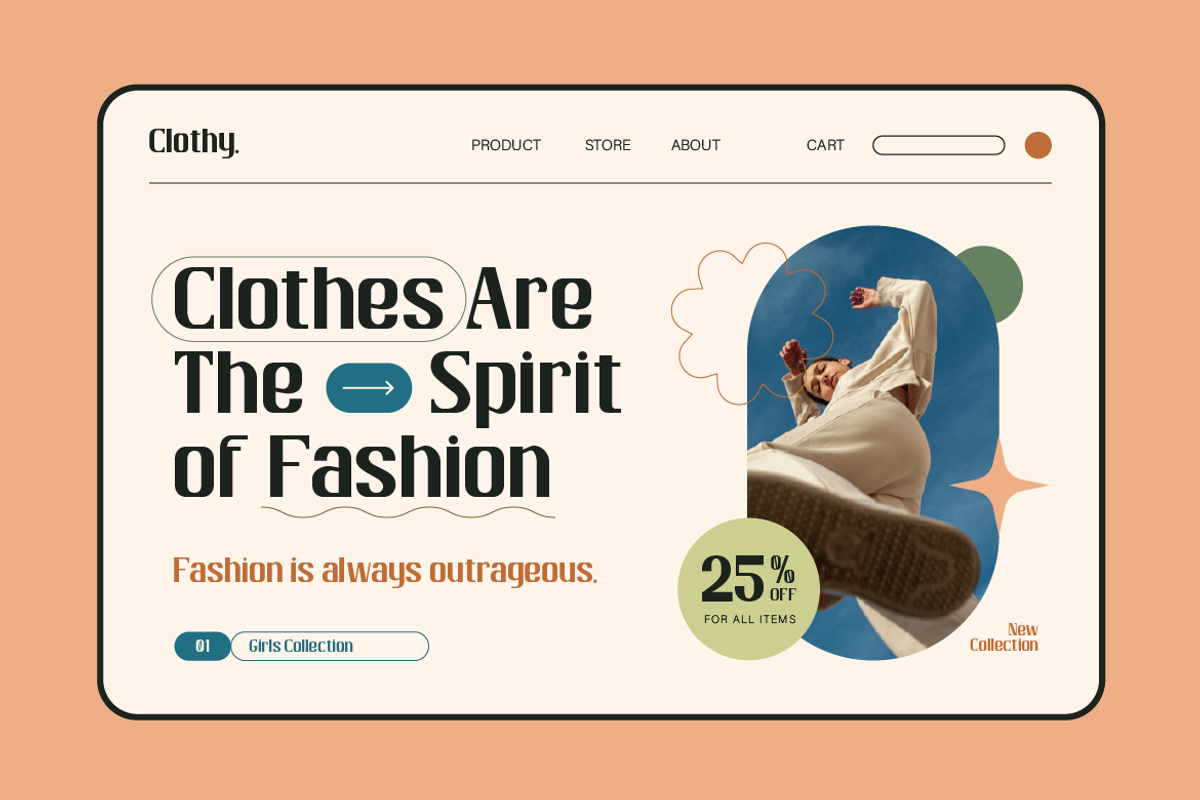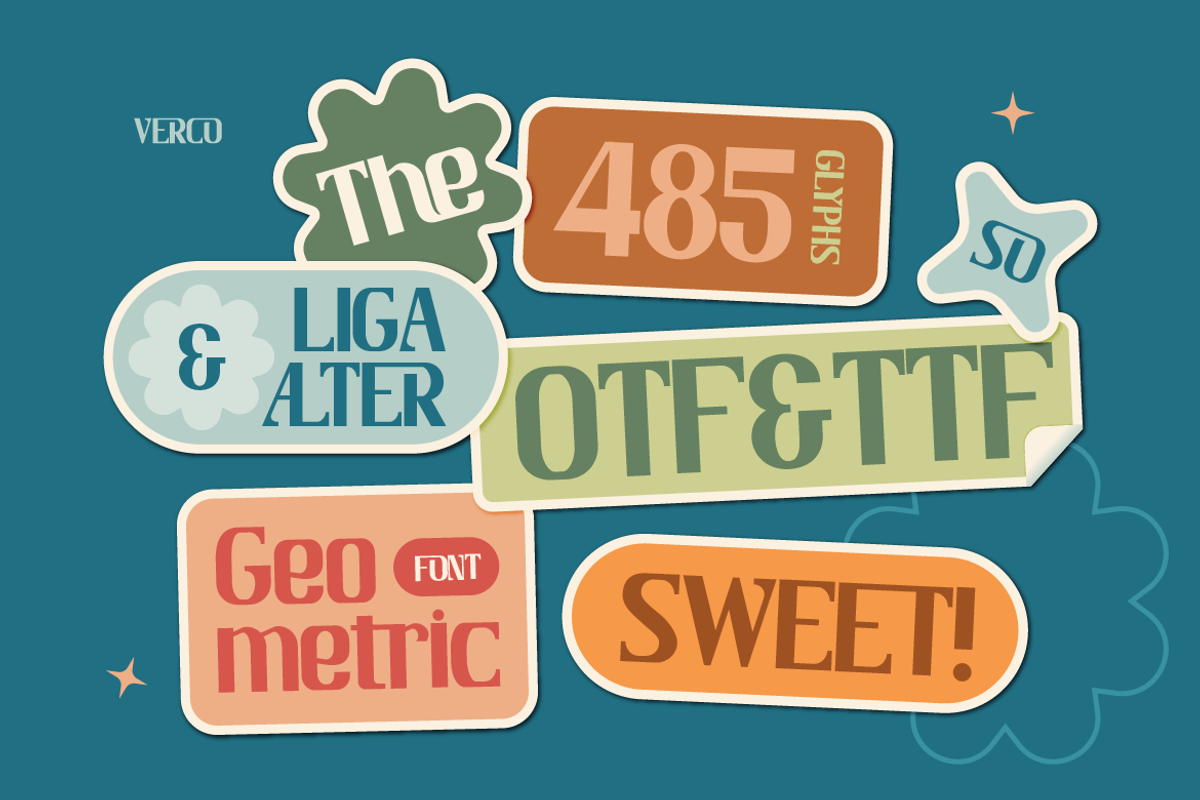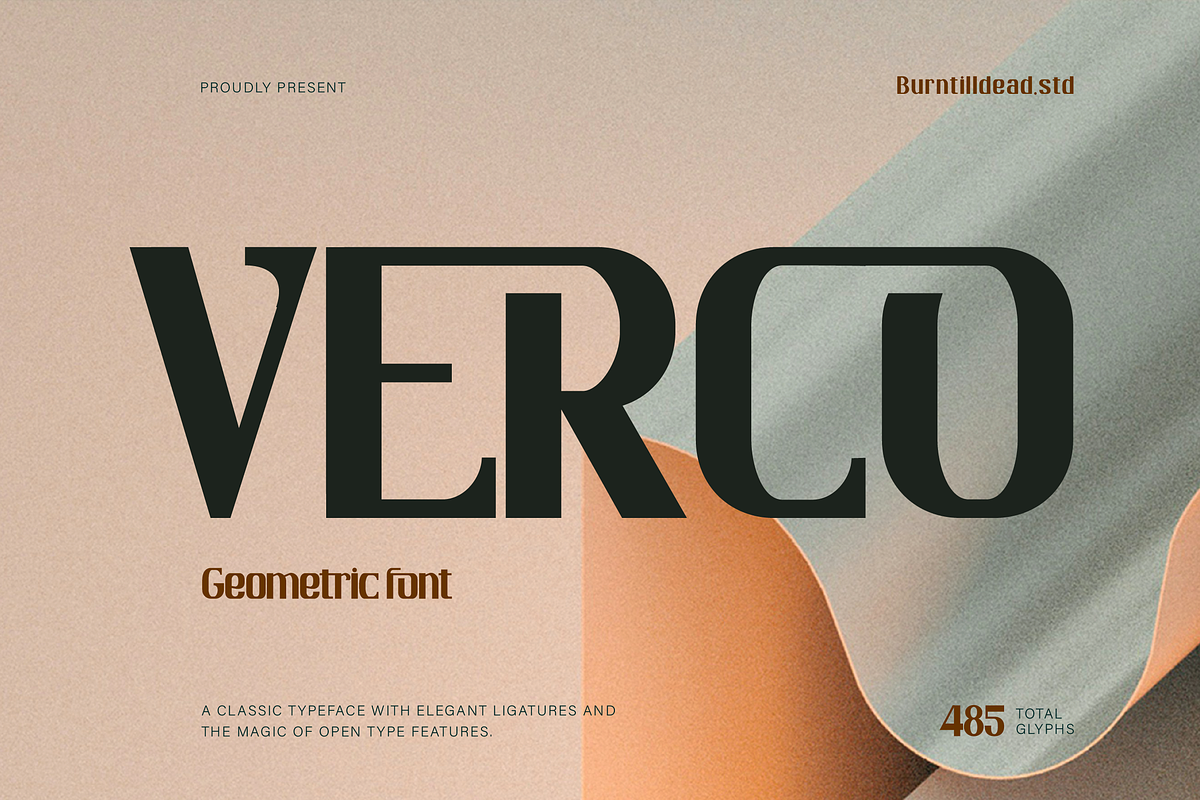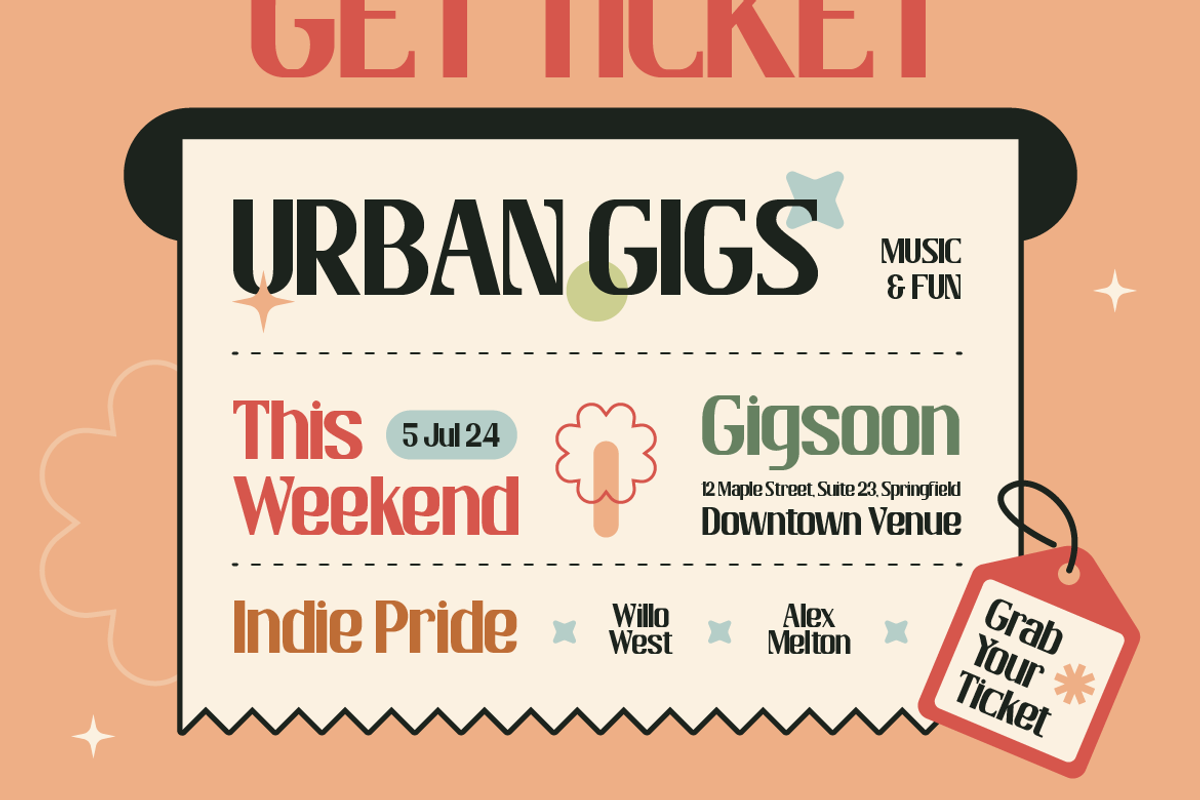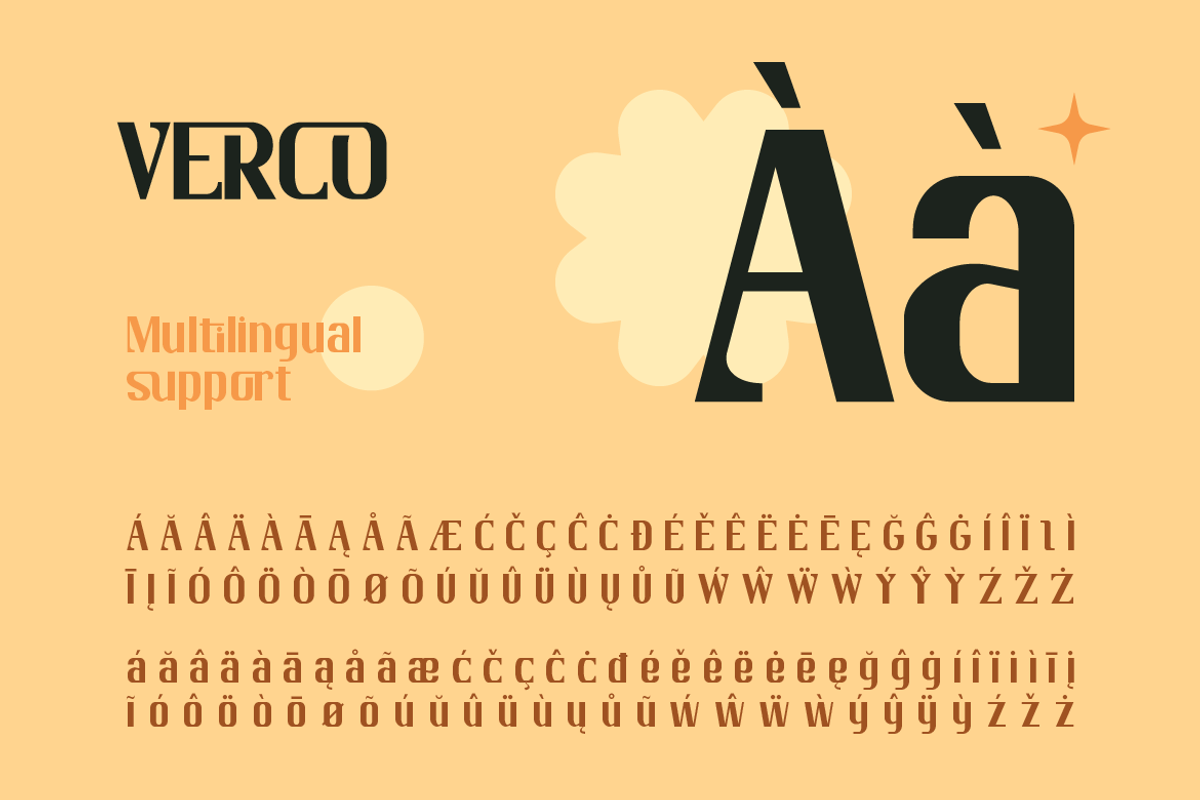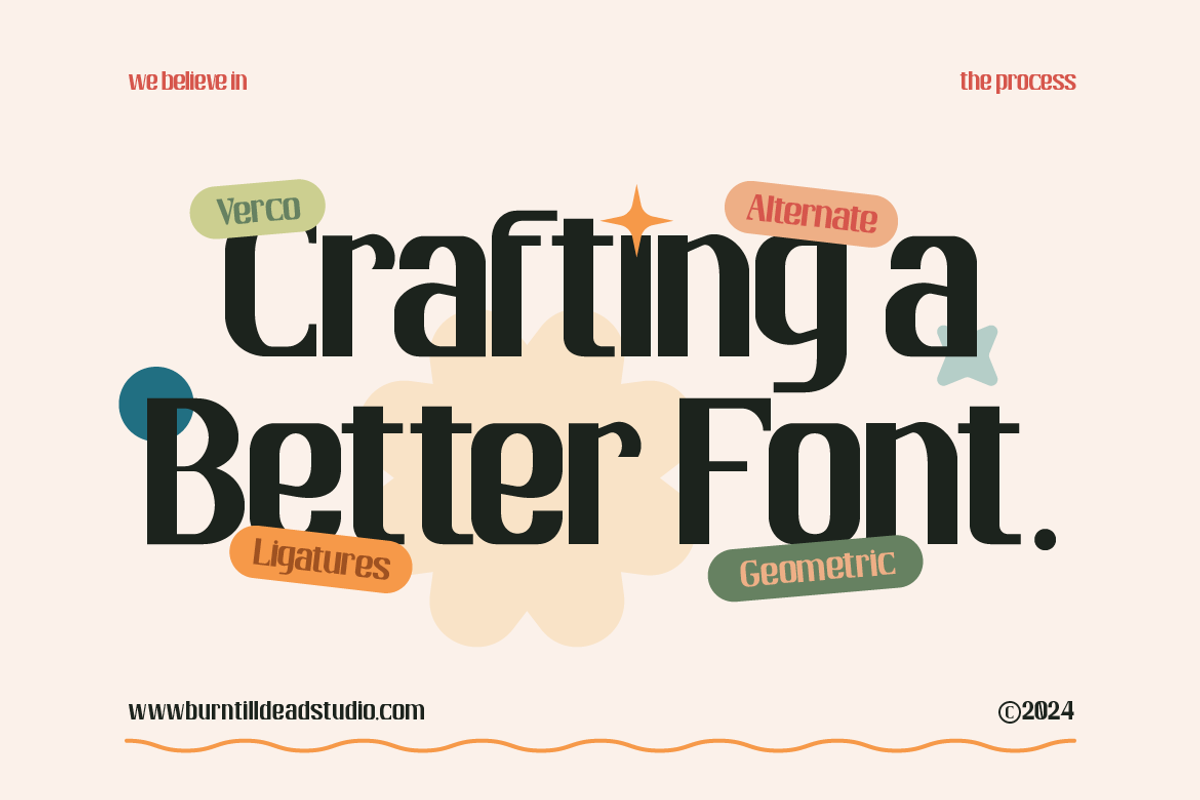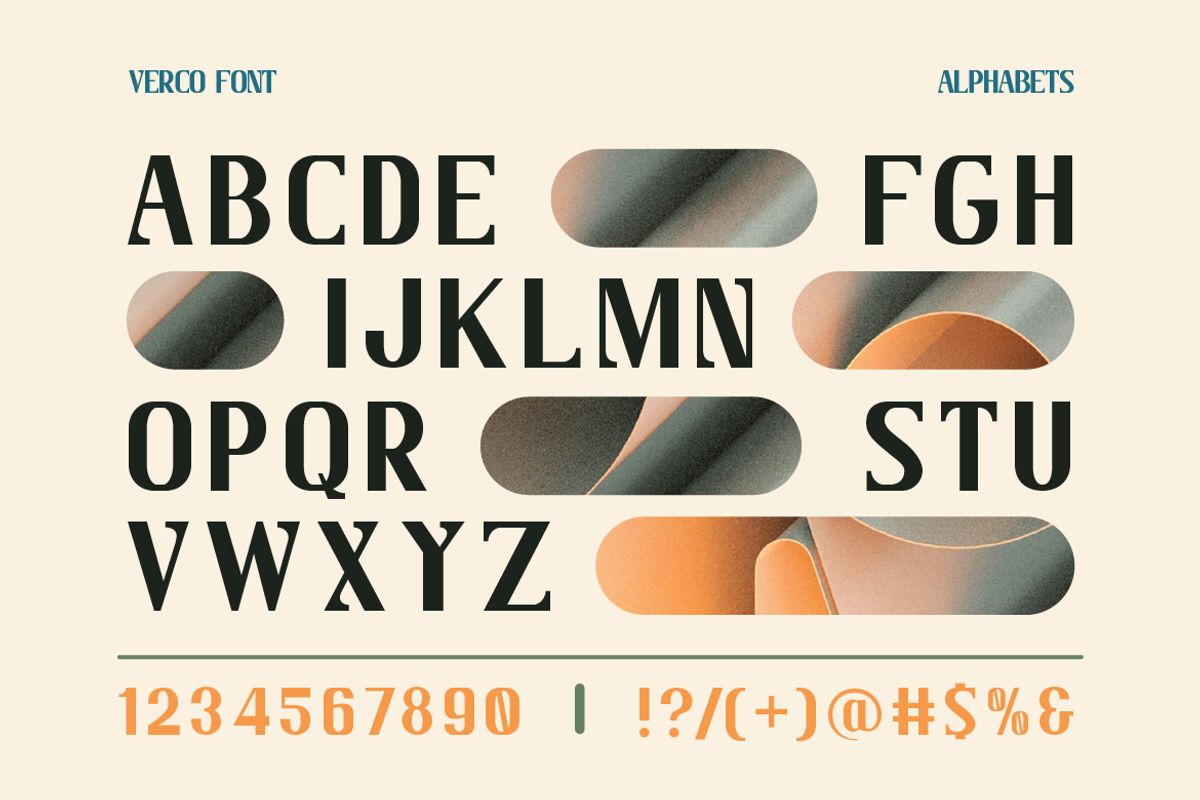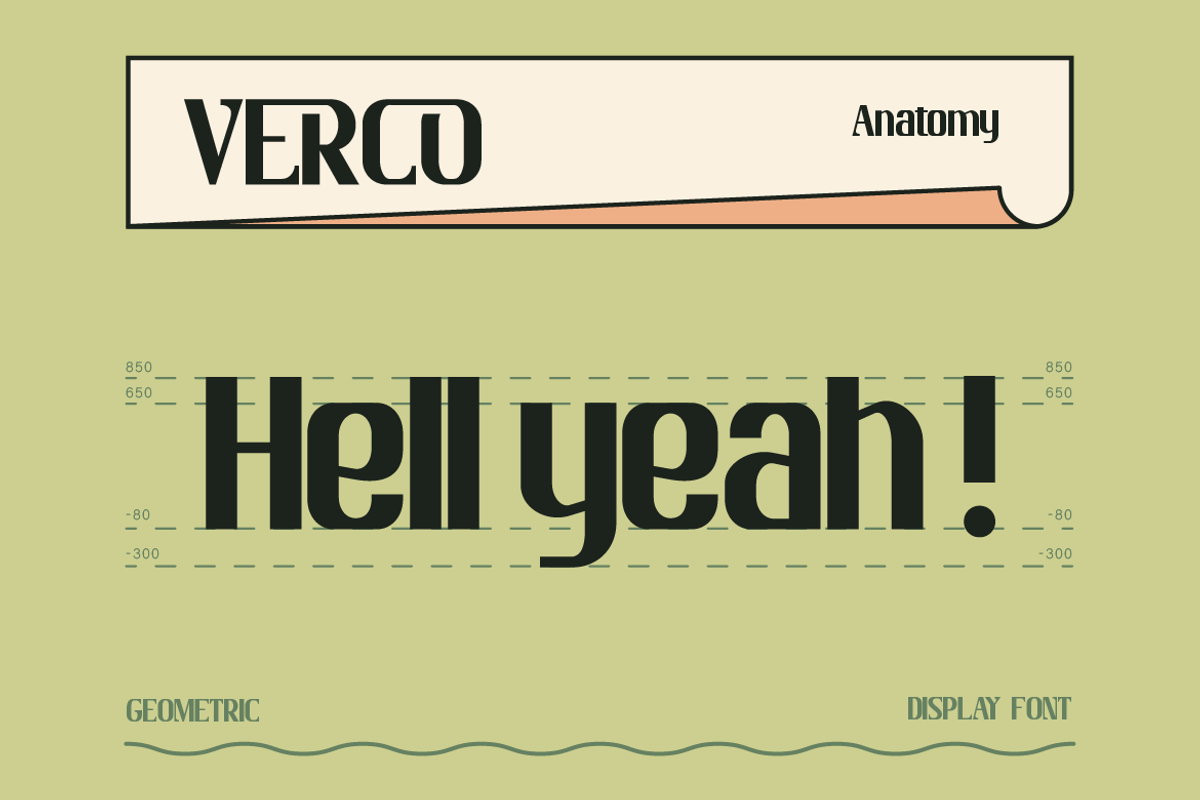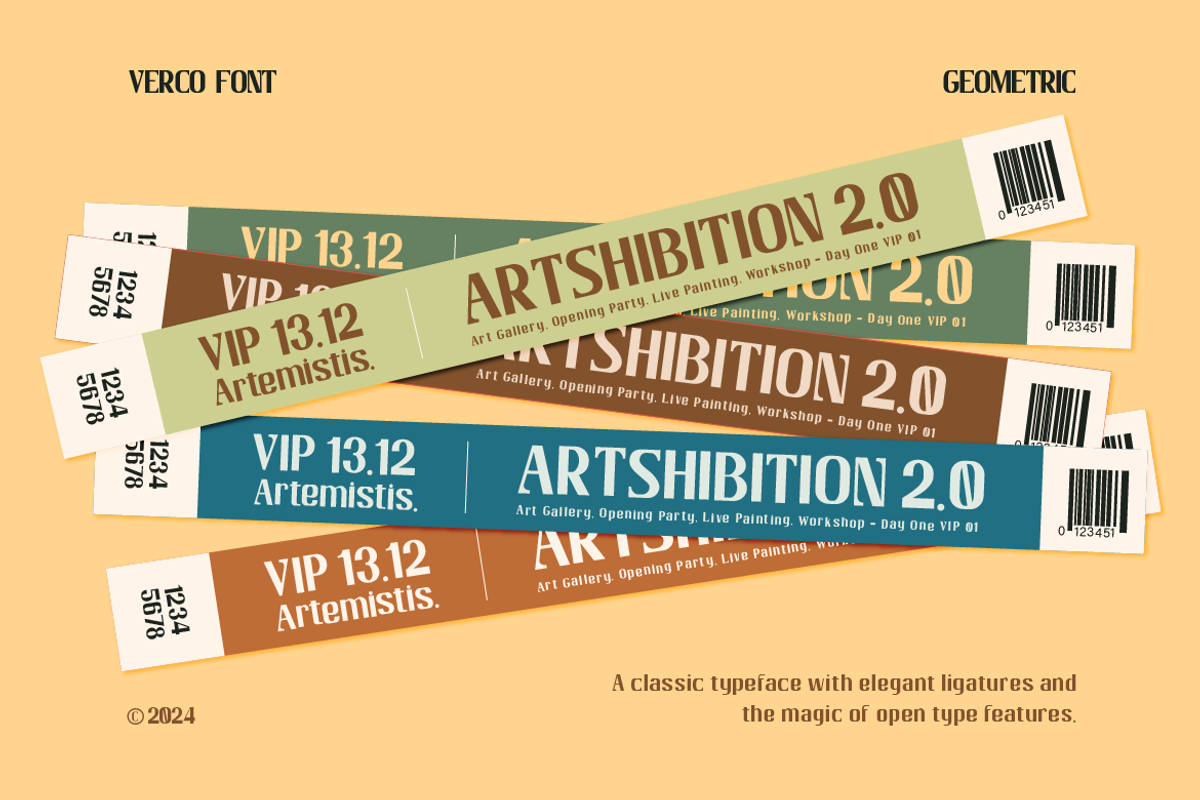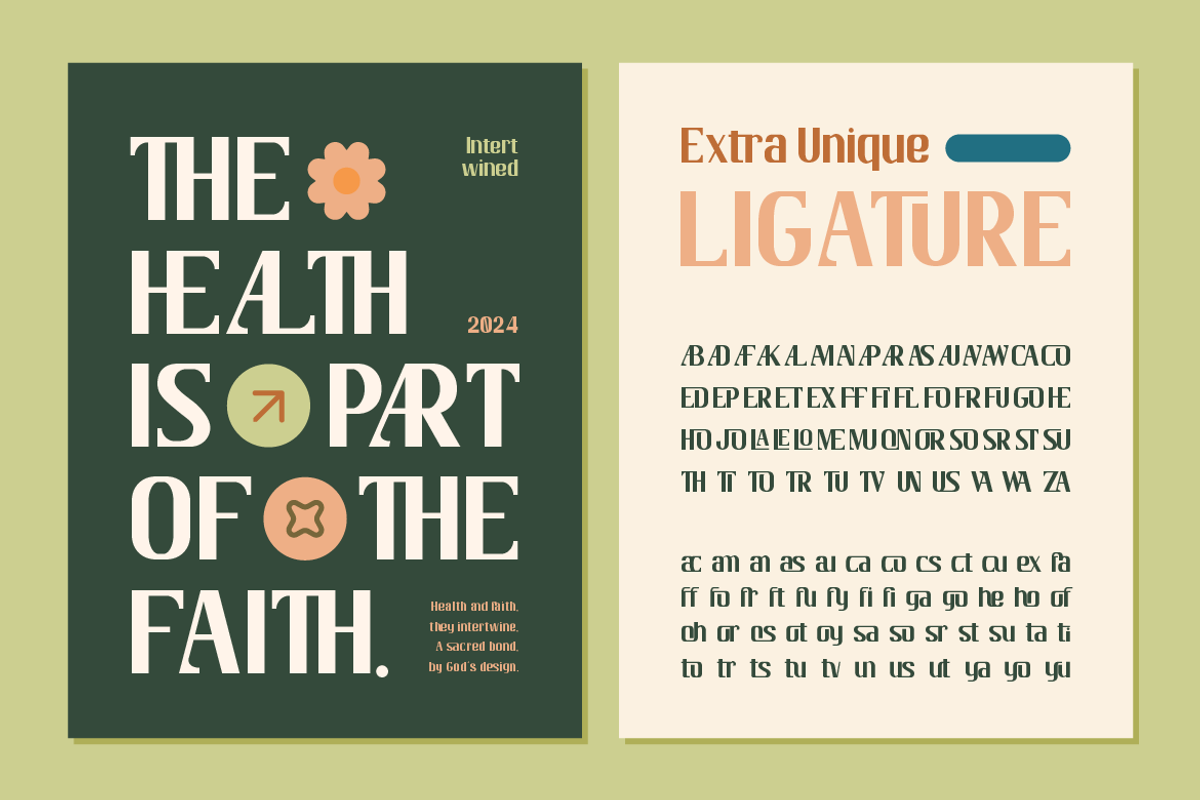
Verco
Introducing Verco, a Geometric fonts characterized by clean and structured shapes. The clean shape such as square, triangle and circle, create a striking visual impact and making them minimalist aesthetic and modern. Perfect for tech, design, and branding projects, Verco offer a sense of clarity and sophistication while maintaining an edgy, contemporary feel. Whether you're aiming for a bold statement or a refined look, these fonts bring a touch of precision and elegance to your typography. They are ideal for creating a sleek, contemporary look in design projects.